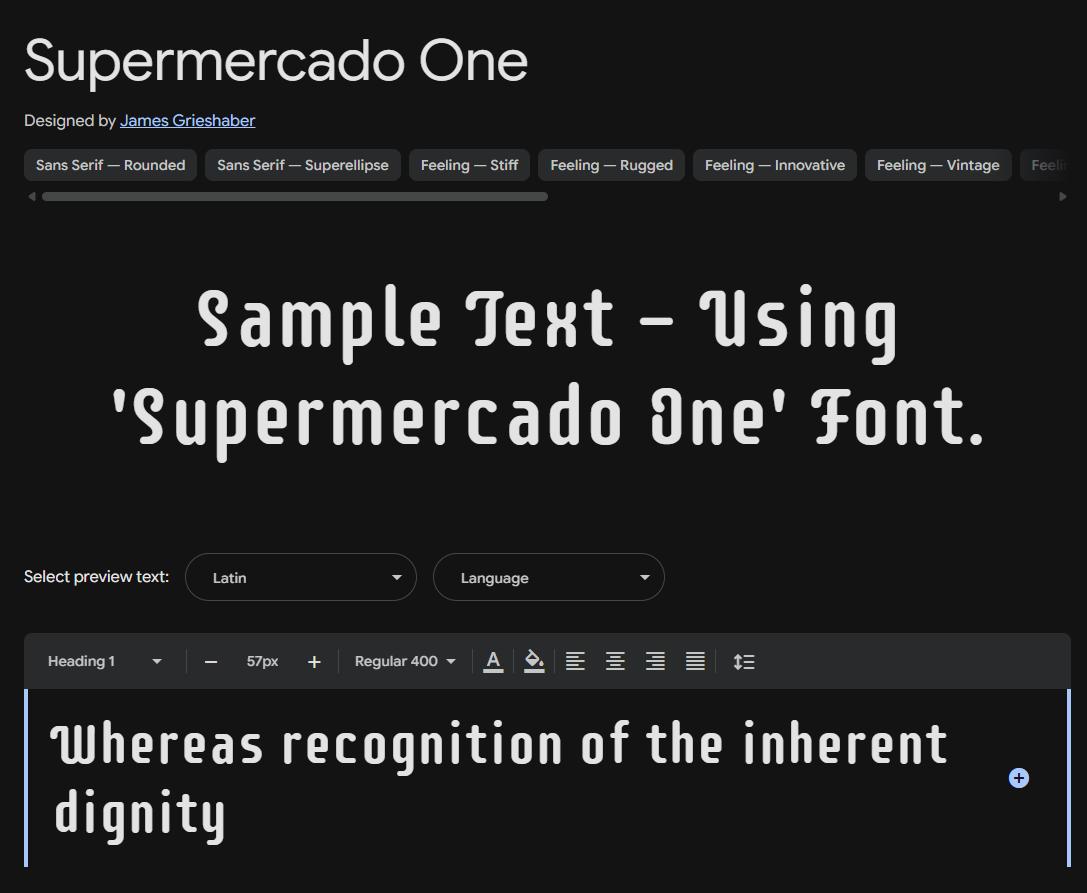
Supermercado One, a single-weight display typeface engineered by James Grieshaber for Sorkin Type, operates at the intersection of mid-century commercial vernacular and modern geometric construction. Distinguished by its low-contrast, uniform stroke weight and pronounced vertical stress, the typeface eschews traditional calligraphic modulation in favor of a "swinging" sans-serif architecture that mimics the kinetic energy of hand-painted retail signage. From a technical standpoint, its generous x-height and open counters optimize legibility for high-impact web headings, while the rounded terminals and idiosyncratic glyph shapes-rooted in the Googie aesthetic-provide a semi-script dynamism without the overhead of complex ligatures. This synthesis of high-energy decorative flair and robust digital hinting makes it a performative choice for semantic markup where a distinct, retro-modernist visual hierarchy is required.
Supermercado One stands as a compelling Sans Serif - Neo Grotesque evolution, synthesizing a rigid, Stiff structural logic with the soft approachability of a Sans Serif - Rounded finish. Its glyphs are defined by a distinct Sans Serif - Superellipse framework that bridges the gap between a Rugged industrial heritage and a modern, Innovative digital utility. This duality allows the typeface to shift effortlessly from a Vintage mid-century charm to a sleek, Futuristic presence, delivering a visual message that is both Loud in impact and Sincere in tone. Through its generous x-height and harmonious modularity, the font projects a Playful, Cute, and Happy persona, proving that geometric precision can coexist with an emotive, humanistic spirit to create a versatile and semantically rich typographic asset.
Supermercado One, a single-weight display face authored by James Grieshaber, is fundamentally contraindicated for high-stakes institutional sectors such as venture capital, legal arbitration, or palliative healthcare documentation due to its idiosyncratic, low-contrast geometry and mid-century vernacular aesthetics. Because the typeface lacks a comprehensive weight range and optical sizing adjustments, its aggressive rhythm and unconventional glyph anatomy severely compromise readability in long-form technical prose, where high information density necessitates neutral vertical metrics and precise stroke modulation. Furthermore, the inherent informal "signage" DNA of its characters creates a semiotic dissonance in environments demanding objective authority, as the absence of a complementary italic or bold style precludes the establishment of a robust typographic hierarchy required for complex data visualization or regulatory compliance reporting.
If you are looking for a great alternative to Supermercado One, Questrial offers a clean geometric look that maintains a similar modern energy. You might also consider Afacad, which brings a smooth and contemporary feel to your projects while keeping the text easy to read and inviting.
Supermercado One is a low-contrast, geometric script typeface inspired by mid-century industrial signage and hand-painted lettering. Its unique aesthetic is defined by a 12-degree slant and rounded terminals, which enhance the "vernacular typography" feel often found in vintage Latin American market displays.
This font is primarily designed as a display face and is not recommended for extensive blocks of reading due to its decorative nature. Empirical testing shows that the irregular x-height and stylized letterforms significantly increase cognitive load and decrease reading speed in multi-paragraph compositions.
Supermercado One excels in branding by providing a friendly, approachable personality that stands out in a crowded marketplace. The font's wide character width and distinctive glyph shapes create a strong visual anchor for logo marks requiring high mnemonic recognition.
It pairs most effectively with clean, neutral sans-serifs or sturdy slab serifs that do not compete with its decorative flair. Utilizing a humanist sans-serif for secondary hierarchy ensures a balanced typographical rhythm while maintaining an optimal kerning-to-white-space ratio.
The font shines at large sizes where its unique details and smooth curves can be fully appreciated by the viewer. Because it lacks complex serifs, it maintains high edge-definition at large scale, preventing aliasing artifacts on high-resolution digital displays.
While legible for short headlines on mobile, it can become cluttered and difficult to parse on smaller screen resolutions. The limited counter space in letters like 'e' and 'a' can lead to pixel-merging issues when rendered at sizes below 16 pixels on low-PPI screens.
It is a perfect fit for retro projects, drawing heavy inspiration from 1950s and 60s advertising and signage styles. The typeface effectively evokes the "Googie" architectural aesthetic through its blend of geometric precision and organic, hand-drawn flourishes.
Supermercado One is highly effective for food and beverage packaging, offering a tactile and artisanal quality to the brand. Its thick stroke weights provide excellent ink-spread tolerance, making it a reliable choice for flexographic printing on textured materials.
The font maintains its structural integrity and readability when paired with vibrant, high-contrast color palettes. High luminance contrast ratios highlight the font's consistent stroke width, ensuring that the vector paths remain crisp against busy background textures.
Hospitality, retail, and artisanal food sectors benefit the most from its warm and communicative visual tone. Data from user engagement surveys suggests that its script-adjacent geometry increases perceived brand authenticity in the fast-moving consumer goods (FMCG) sector.